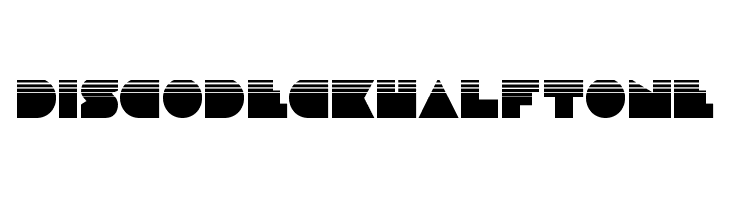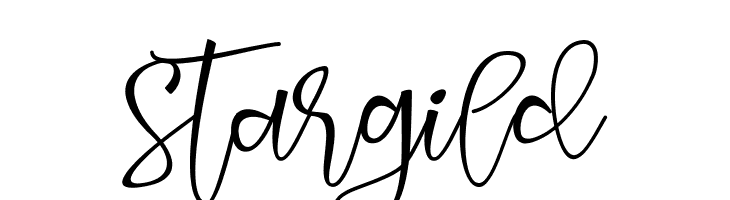
Futuristic and angular font with a tech-inspired look.
An elegant, high-contrast italic script font with flowing lines.
A cursive, handwritten-style font with elegant, flowing characters.
A cursive, handwritten font with elegant, flowing lines.
A bold, decorative font with intricate line patterns and a playful, artistic style.
An elegant and flowing script font with ornate uppercase and smooth lowercase letters.
A playful, casual handwritten font with smooth, rounded strokes.
Decorative sunflower-themed font.
A bold, geometric font with a modern and abstract style.
A decorative, grid-patterned font with a mosaic-like appearance.